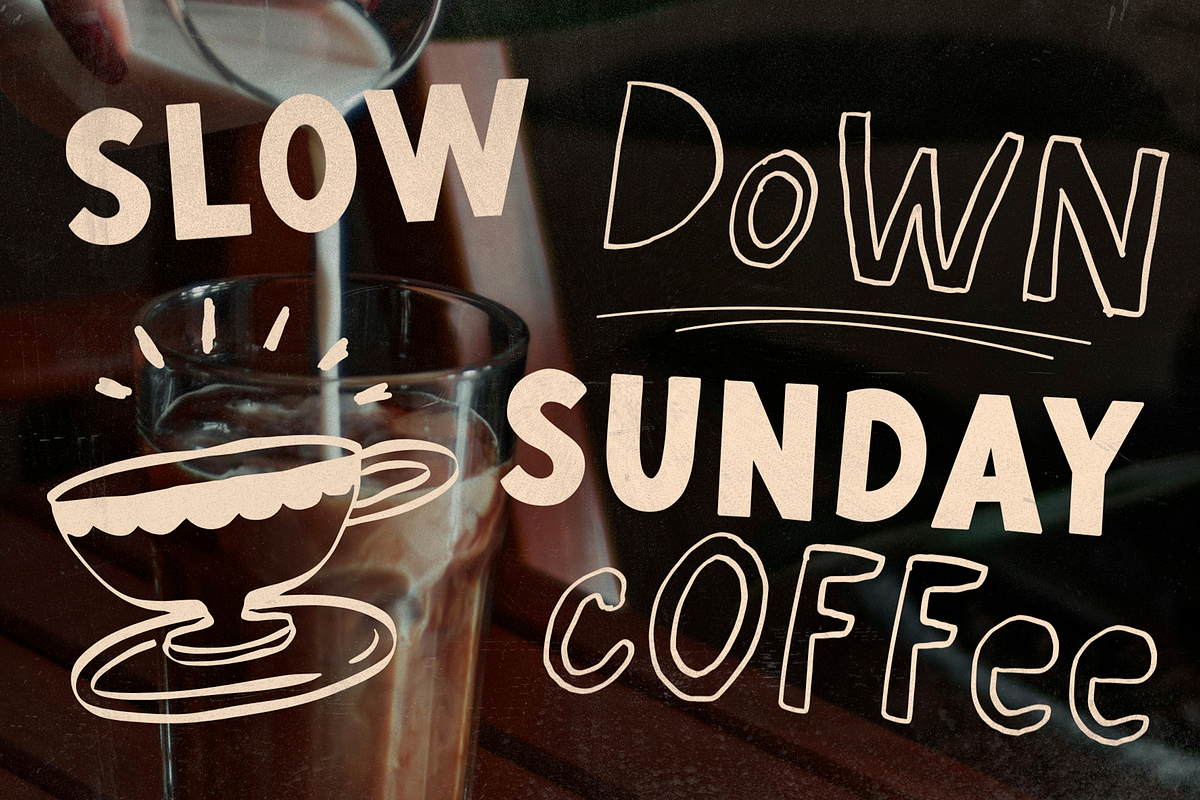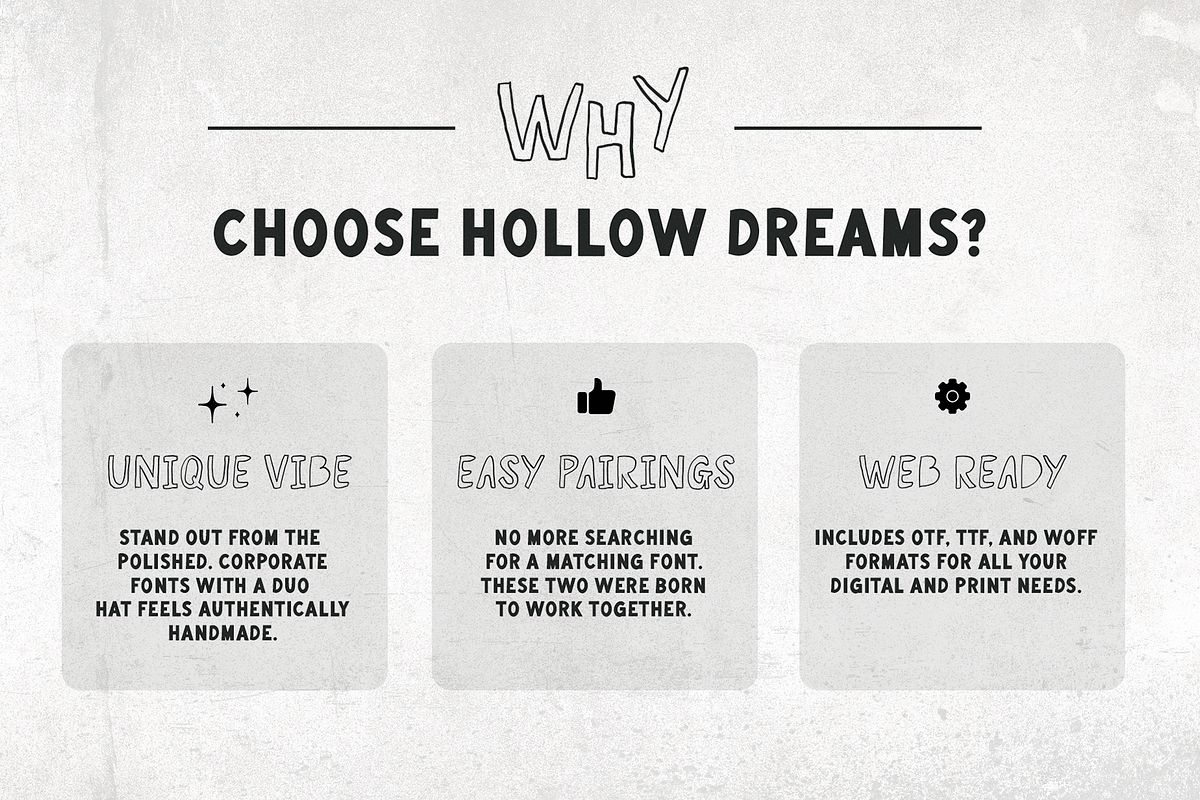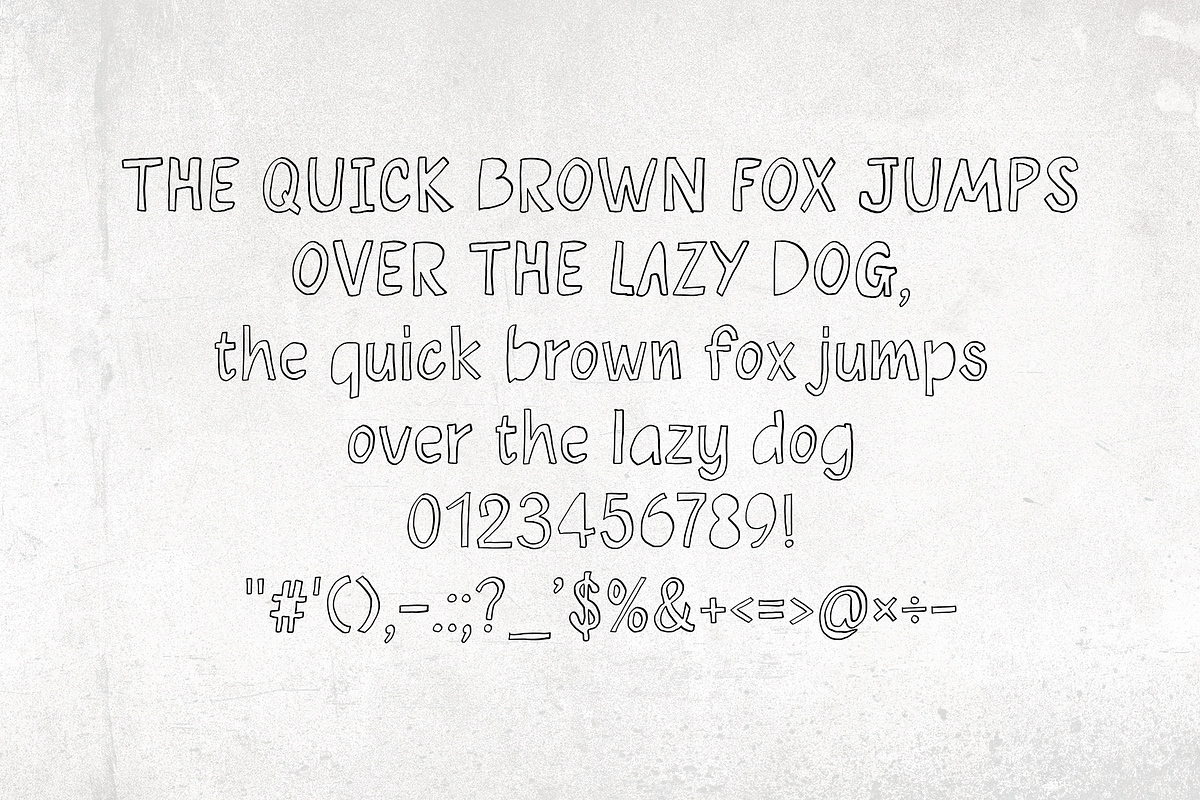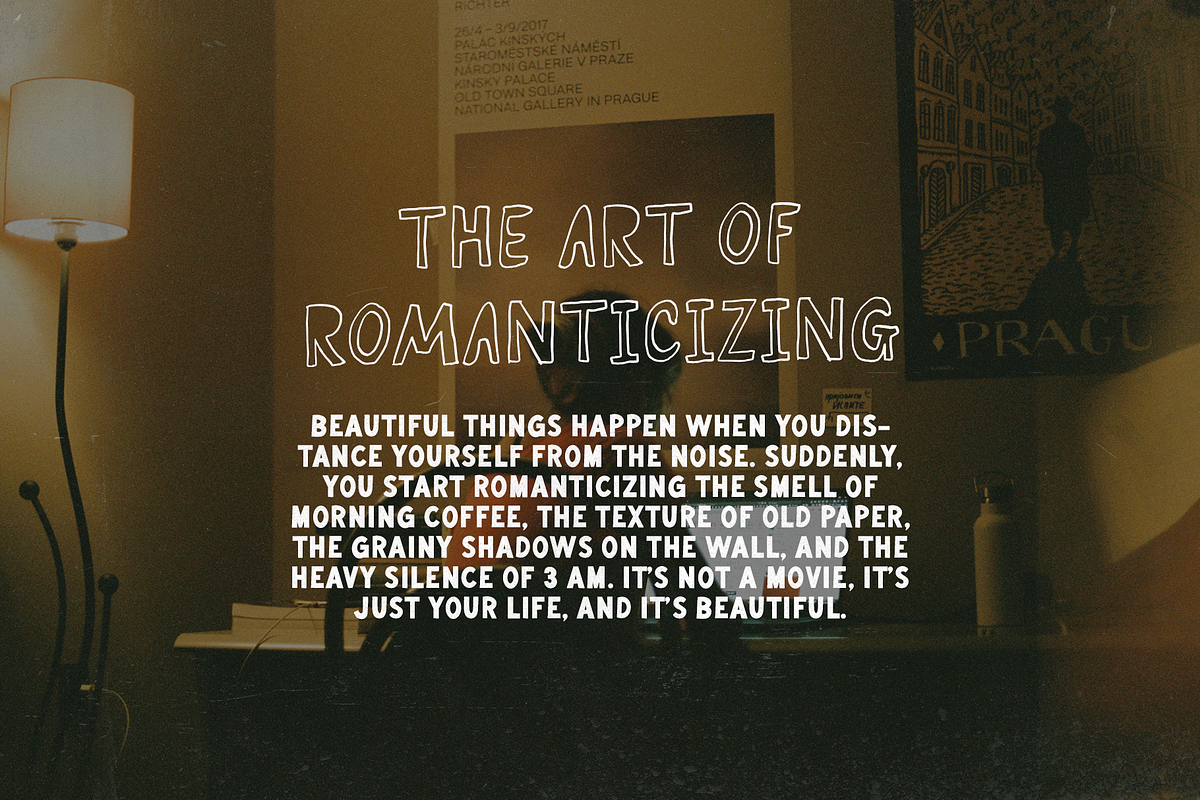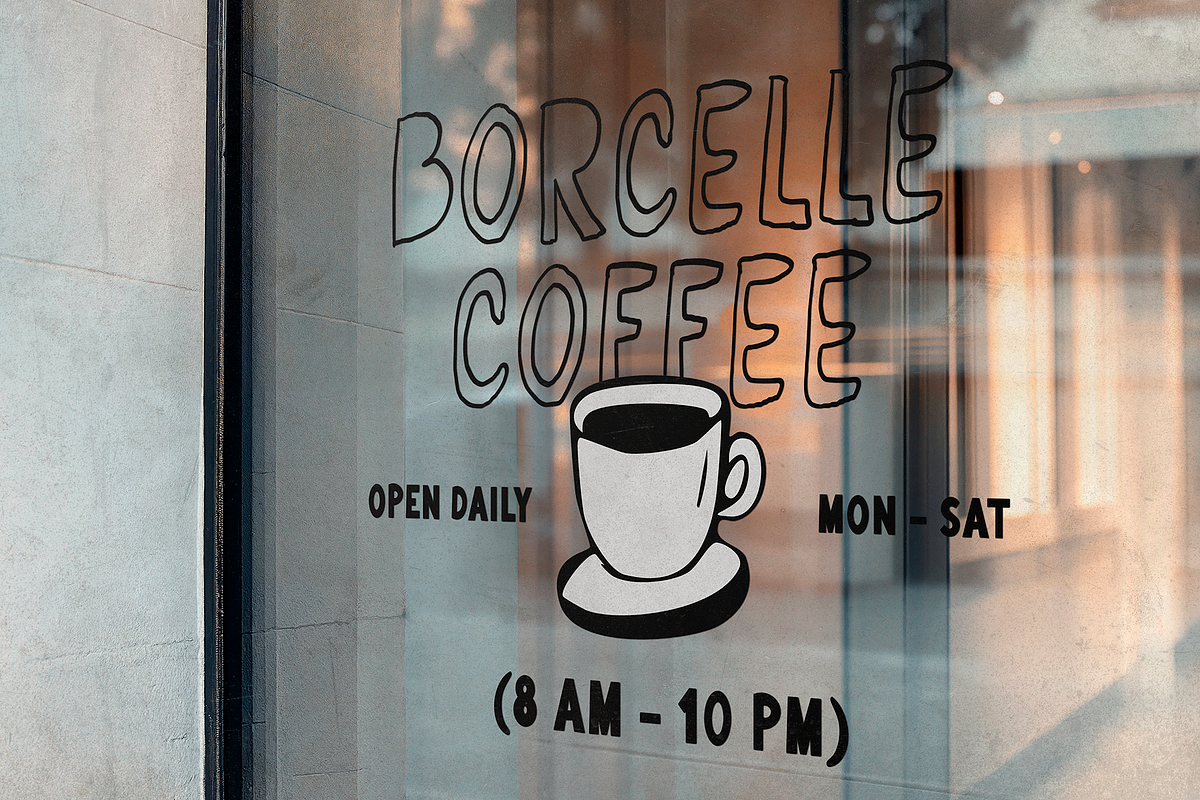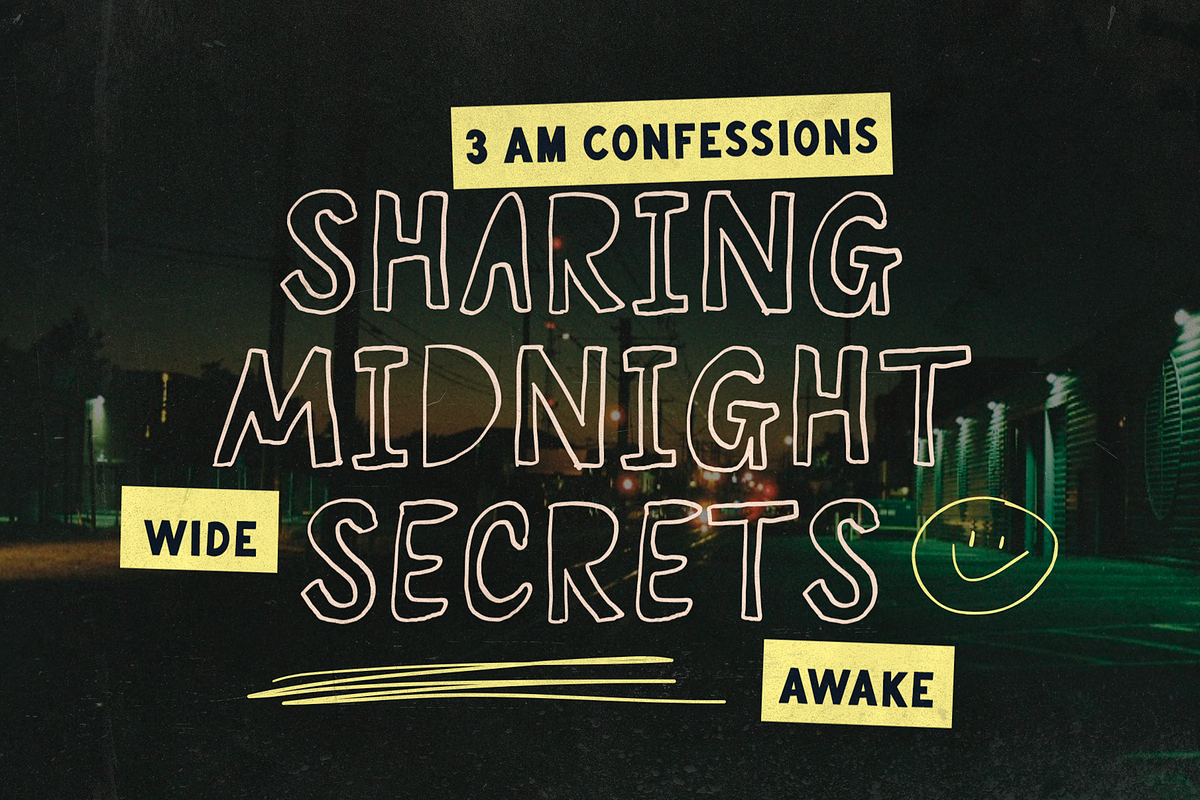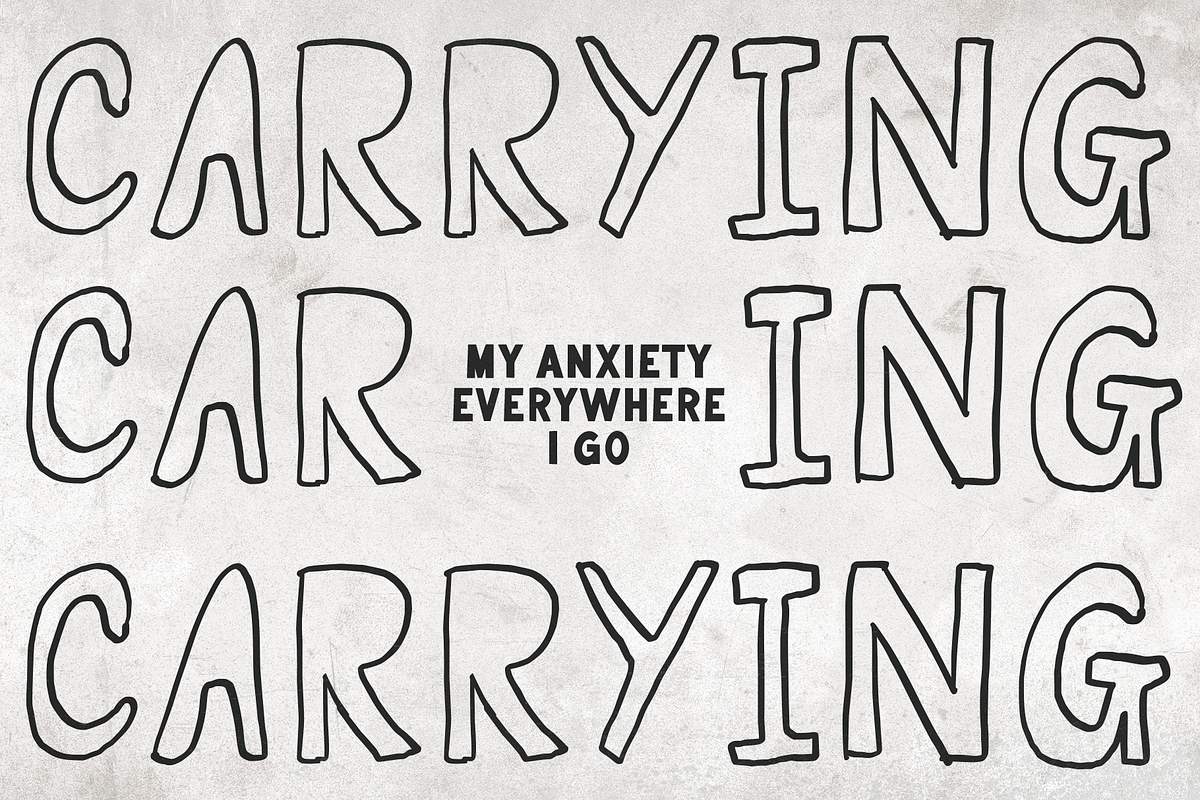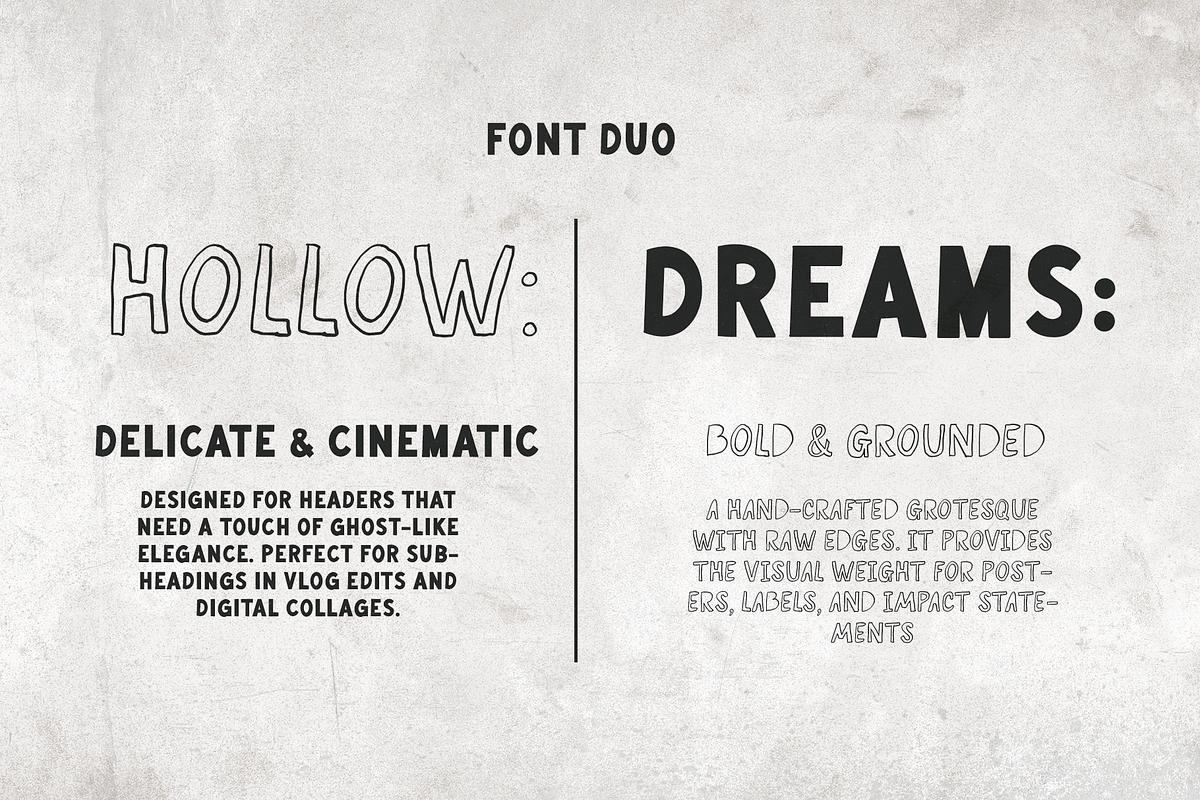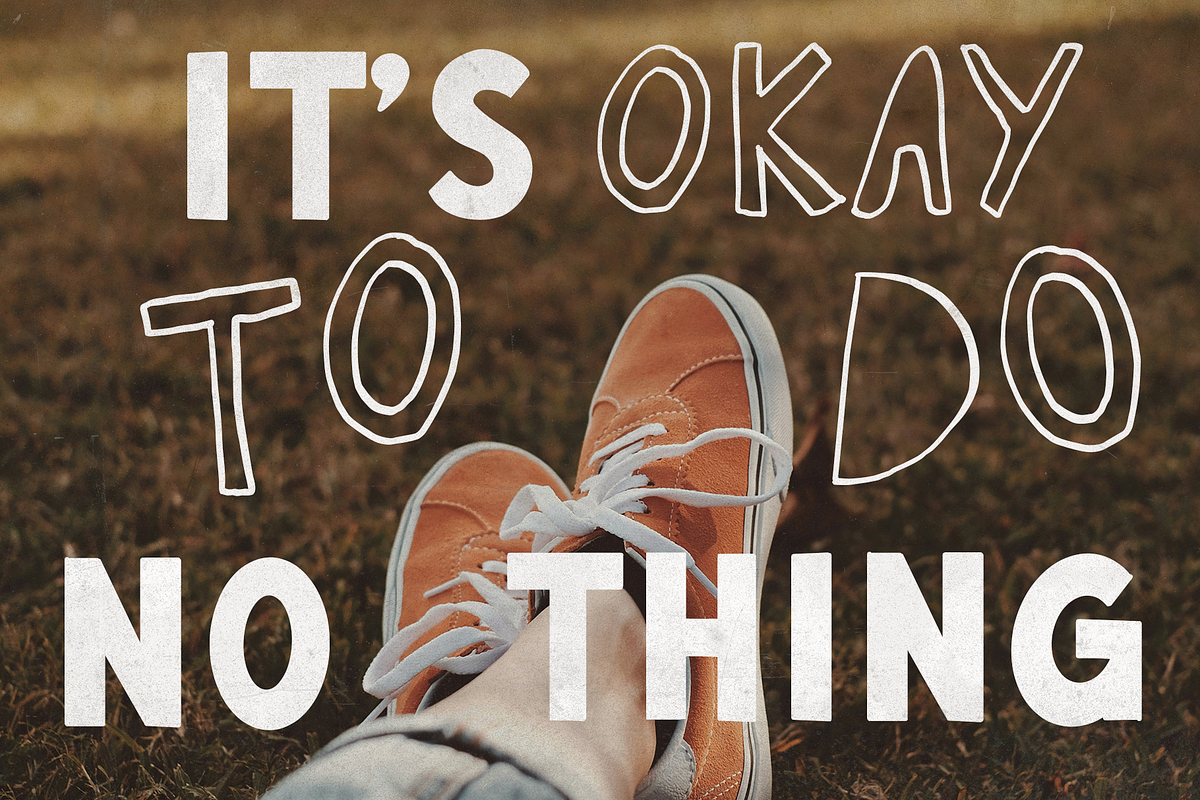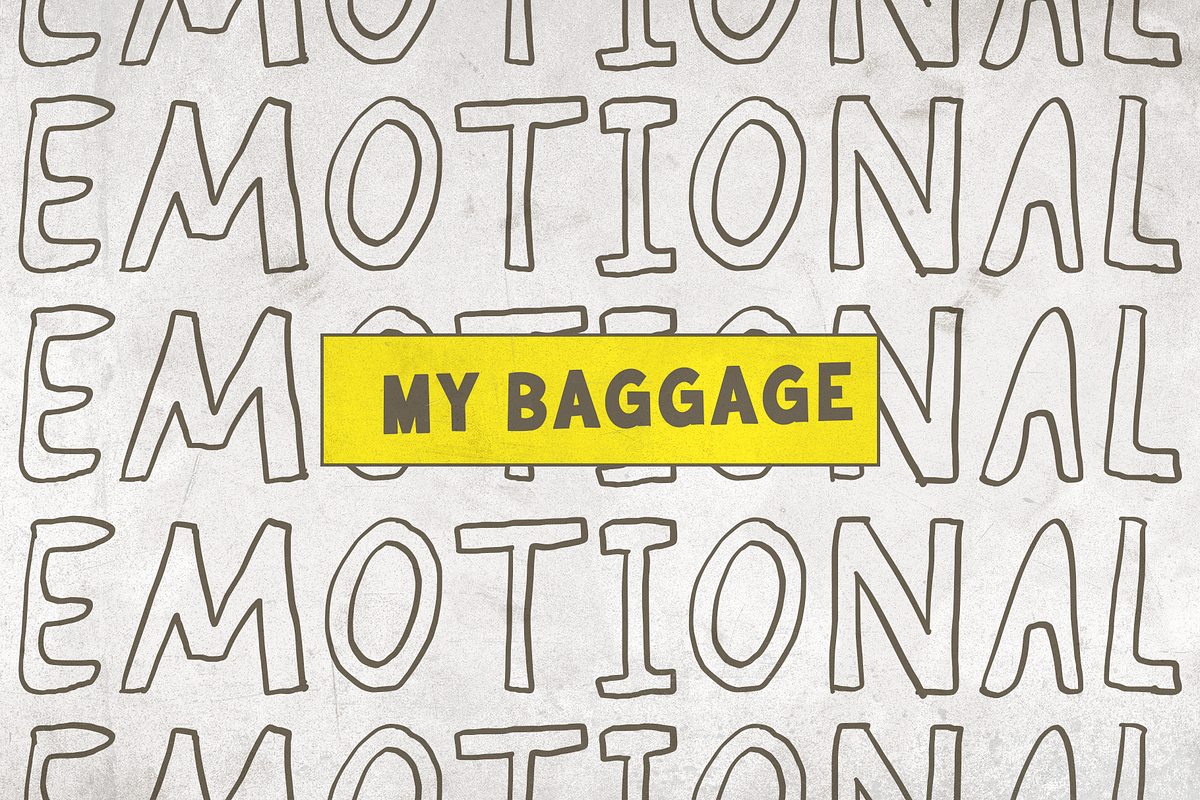
Hollow Dreams • Handwritten Font Duo
Whether you are aiming for a moody lo-fi vibe, a trendy streetwear look, or warm, authentic branding, Hollow Dreams offers a perfect contrast that balances bold impact with minimalist simplicity.
Hollow Dreams Solid: A thick, playful, and high-impact handwritten font that stands out beautifully in titles, logos, and key accents.
Hollow Dreams Outline: A hollow, sketched-style companion font that brings a sense of breathing room, subtle texture, and modern indie charm.
Branding & Packaging: Elevate local coffee shops, bakeries, craft candle labels, or menus with a warm, welcoming, and unique touch
Content Creation: Craft beautiful, film-grained Instagram Stories, TikTok titles, or YouTube thumbnails for lifestyle, travel, and music vlogs.
Apparel & Mercandise: Design eye-catching tote bags, streetwear hoodies, or embroidered caps featuring relatable quotes and bold typographic layouts.
Stationery & Prints: Create conversational card games, quote posters, or contemporary wedding invites with a distinctive, handwritten feel.